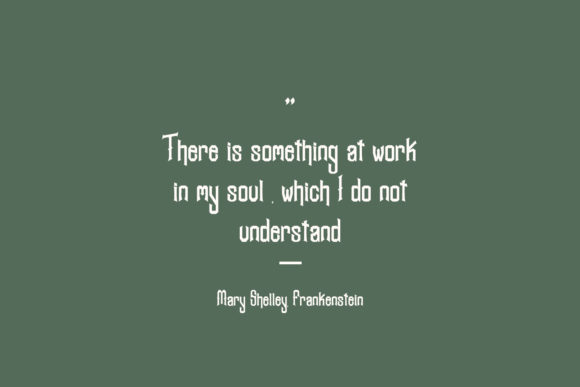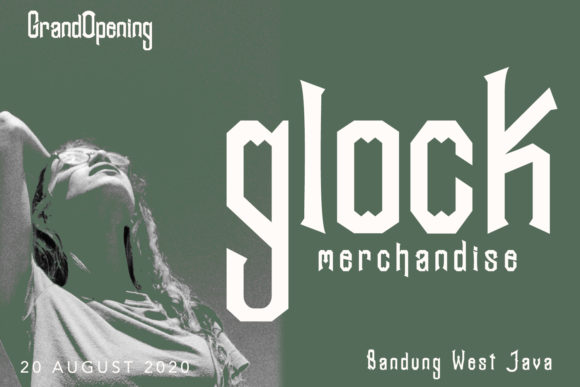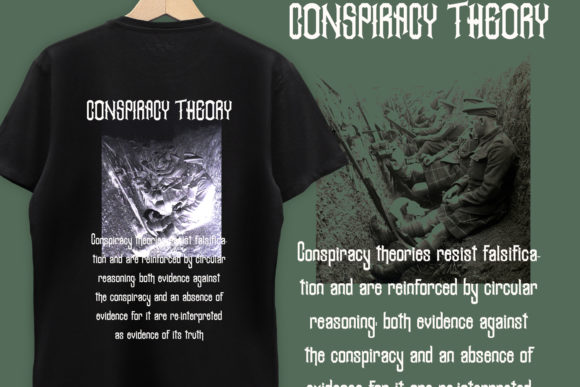
Introduction to Shearshank Font
Shearshank is a gothic blackletter font.
It will add a special touch to your designs and it’s perfect for creating quotes, logos, branding, posters and much more .
Shearshank Font offers exceptional quality and versatility, making it a valuable addition to your design toolkit. Whether you’re creating for personal projects or commercial use, Shearshank Font delivers professional results.